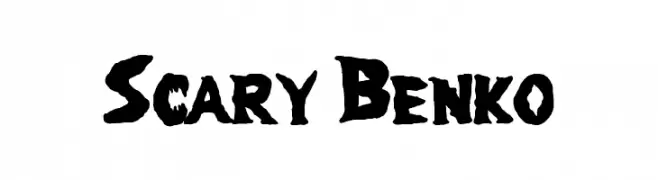
A bold, jagged font with a spooky, distressed style.
A jagged, eerie font perfect for horror themes.
A bold, jagged font with a chilling, horror-themed aesthetic.